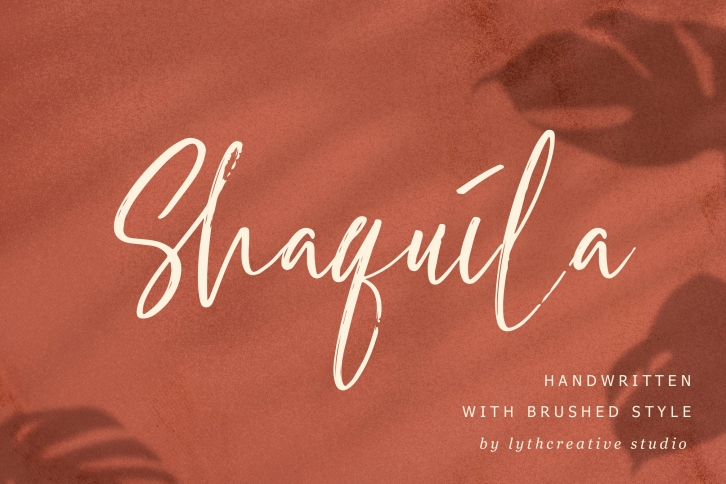
Shaquila Handwritten Font Download
Shaquila Handwritten is a beautiful font that was designed by Lyth Creative. It's a great choice for designers and creatives who need such a font. It was released on January 29, 2021 and the file size is 4.22 MB. Shaquila Handwritten may give a more youthful, expressive and casual look to your project. It is a very beautiful, refined, elegant, and high-quality font.